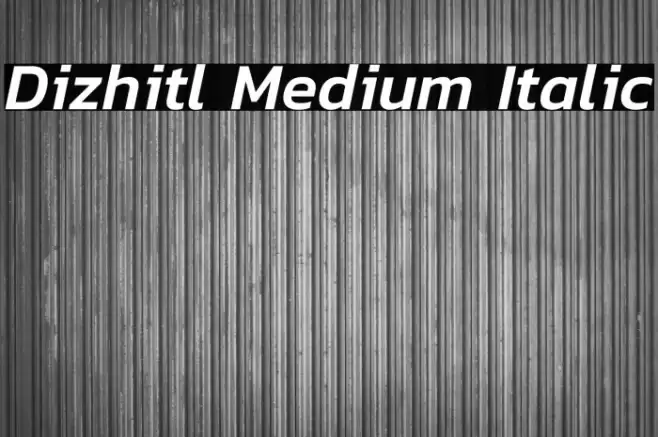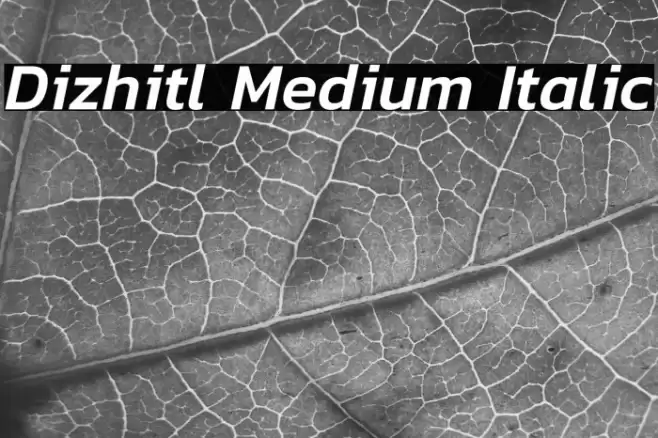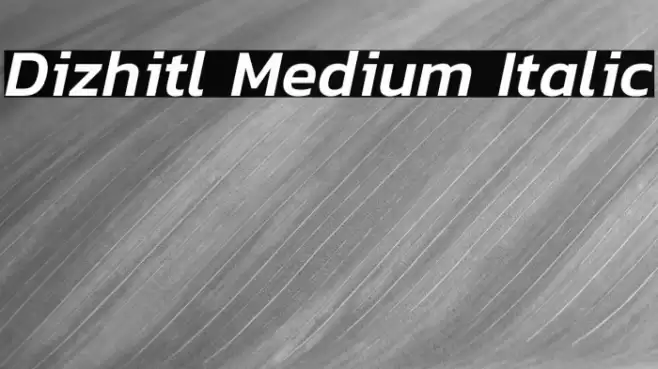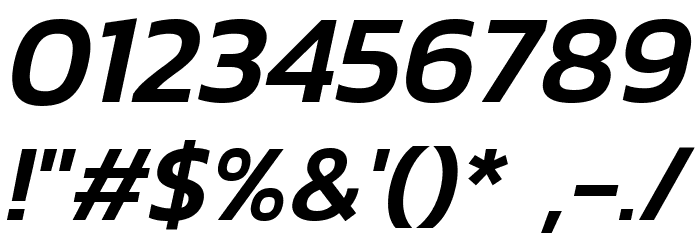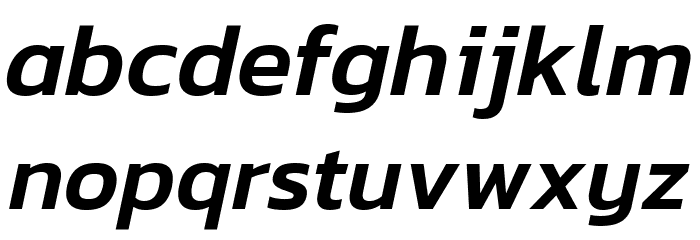
Dizhitl Medium Italic Font
Dizhitl Medium Italic Description
This font features a sleek and modern design with a slight italic slant, giving it a dynamic and forward-moving appearance. The characters are well-defined with a medium weight, offering a balanced and readable look. The sans-serif style contributes to its clean and contemporary feel, making it versatile for various applications. The spacing between characters is normal, ensuring clarity and legibility across different sizes. The font's stroke contrast is low, maintaining uniformity in thickness throughout each character, which enhances its modern aesthetic.
A modern, italic sans-serif font with medium weight and low contrast from Sans Serif fonts.